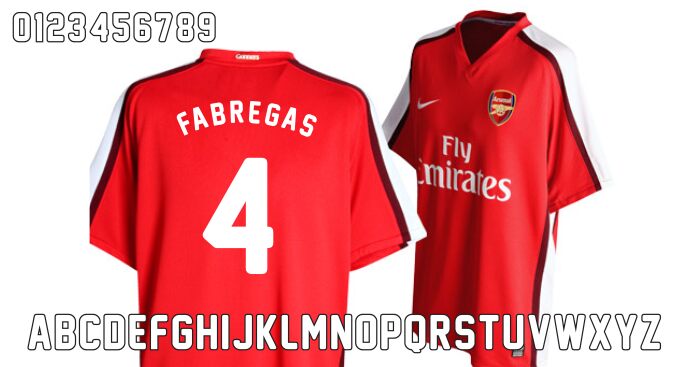
New Athletic M54 by Mohammed Rahman is a free condensed display sans serif with the blunt force of hand-cut sports lettering. Its tall caps have uneven stroke widths, softly rounded corners, and slight changes in stance that keep the forms from looking mechanical. The compact silhouette feels tough and informal.
Those irregular, blocky shapes can echo illustrated mascots and rough team emblems on posters or merchandise. They also suit gym branding and event graphics, where the narrow build supplies an assertive title without losing the handmade edge. Its clearest audience is designers working in grassroots sports, youth events, and energetic streetwear.